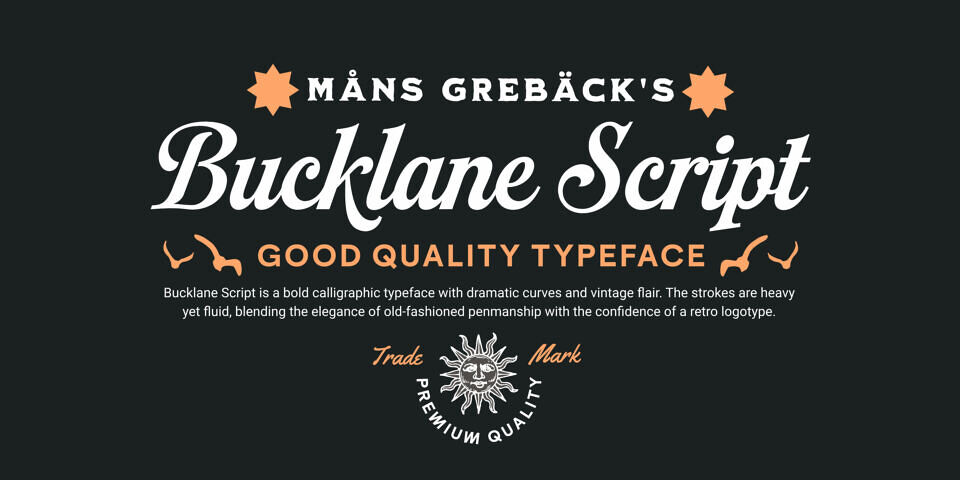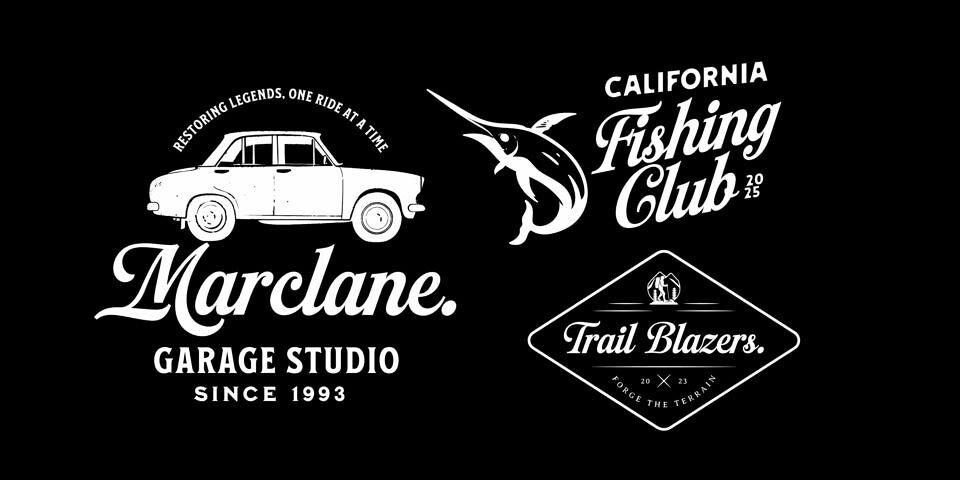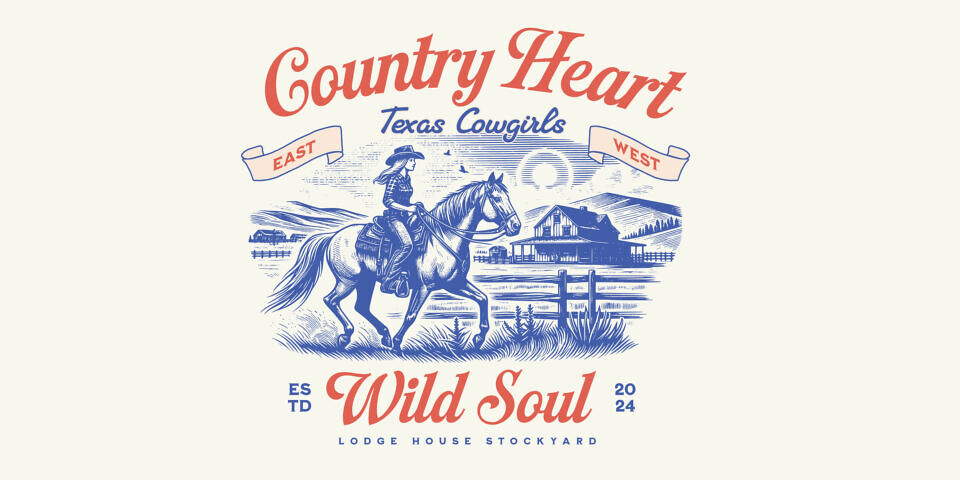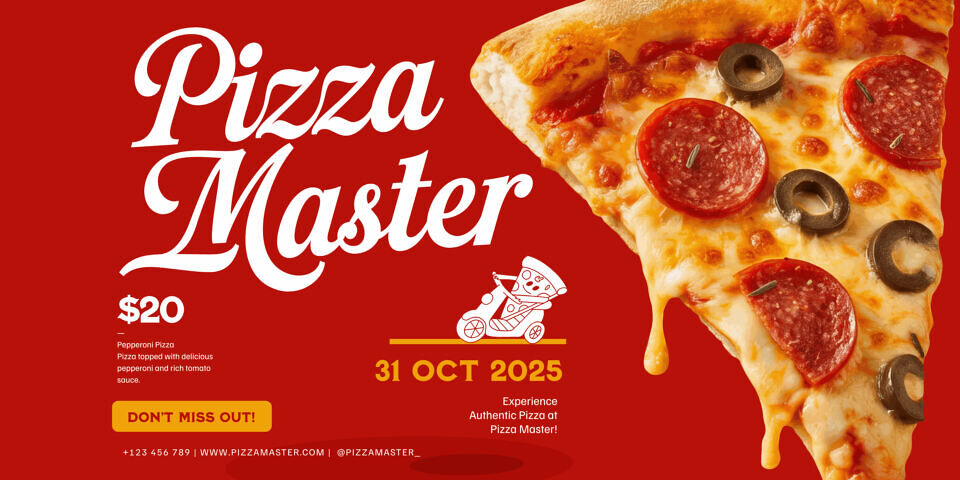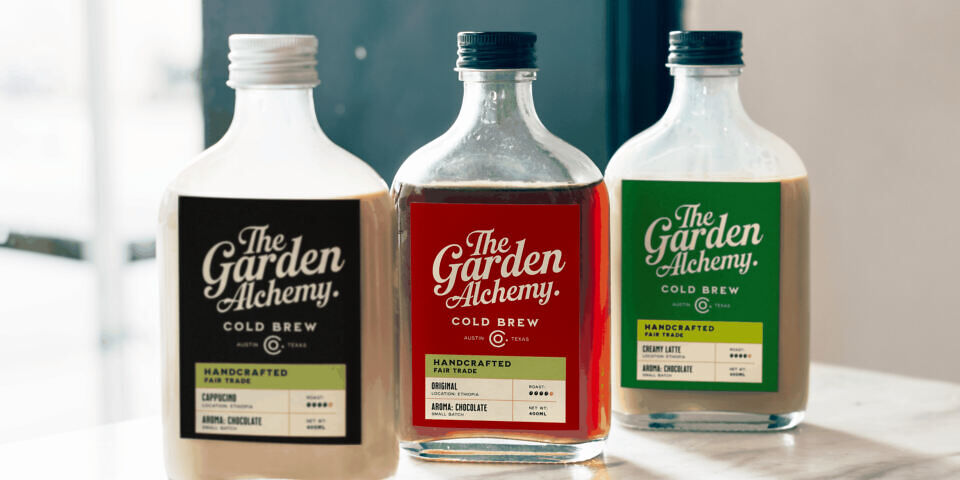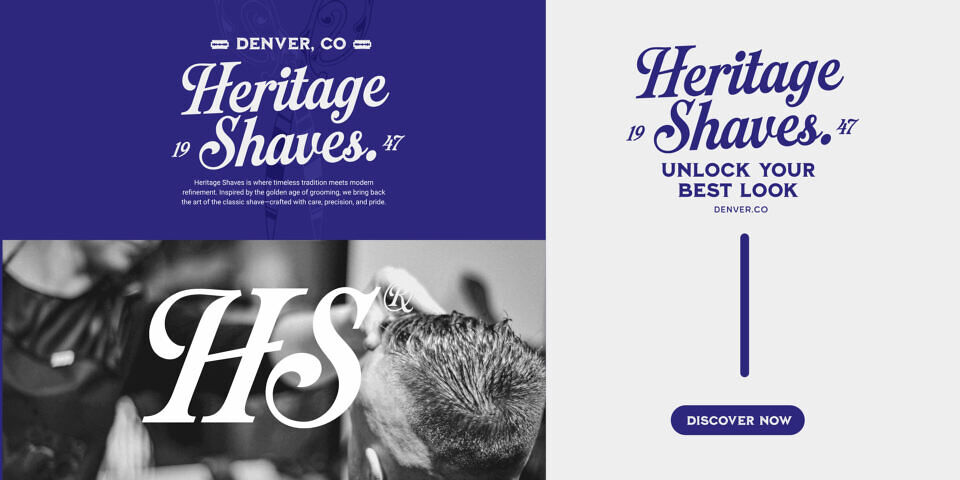
Bucklane Script Font
Bucklane Script is a bold calligraphic typeface with dramatic curves and vintage flair. The strokes are heavy yet fluid, blending the elegance of old-fashioned penmanship with the confidence of a retro logotype. With decorative swashes and striking uppercase forms, it adds character to every word–whether it’s carved onto a whiskey barrel or lighting up a marquee.
The design draws inspiration from mid-20th-century sign painting, but carries a contemporary sharpness that keeps it relevant and fresh. Lowercase letters maintain readability while echoing the ornamental energy of the capitals, creating a consistent rhythm across any text.